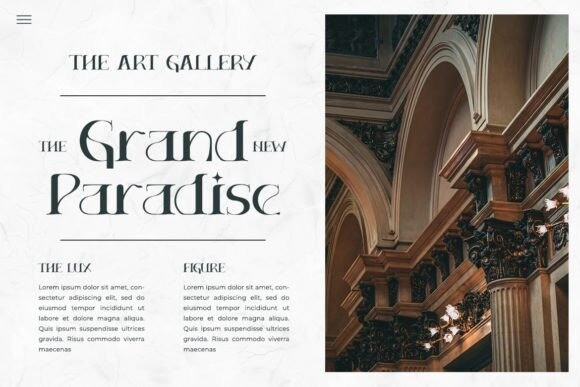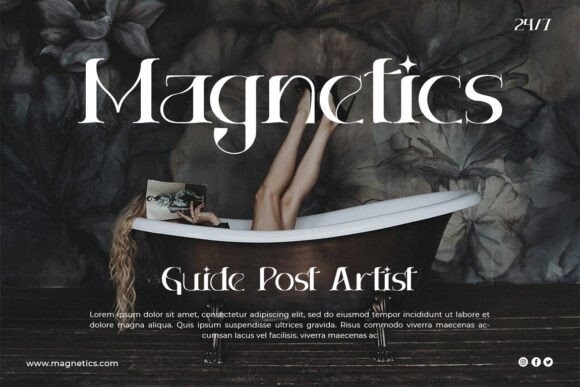
Filled Gold Font
Filled Gold is a expressive serif font.
This serif font will be the ideal choice for any cool project or great design you wish to develop.